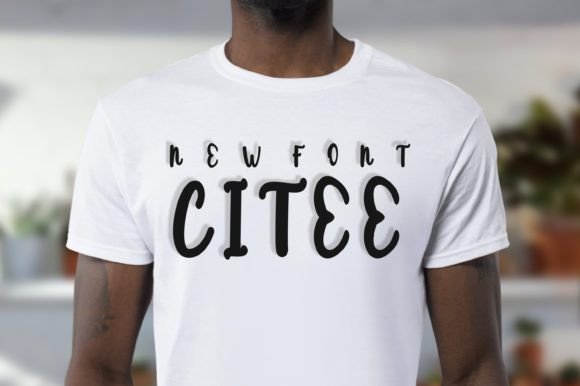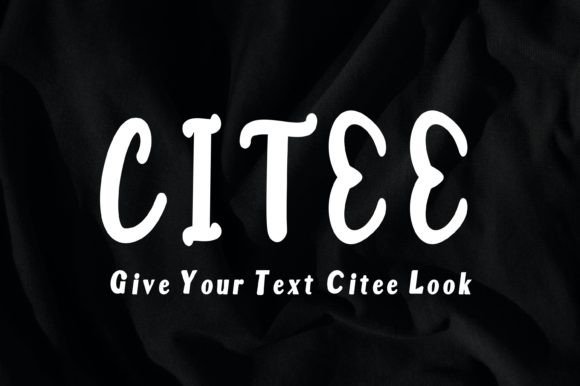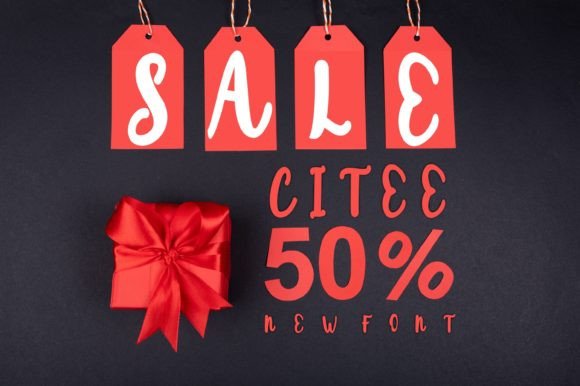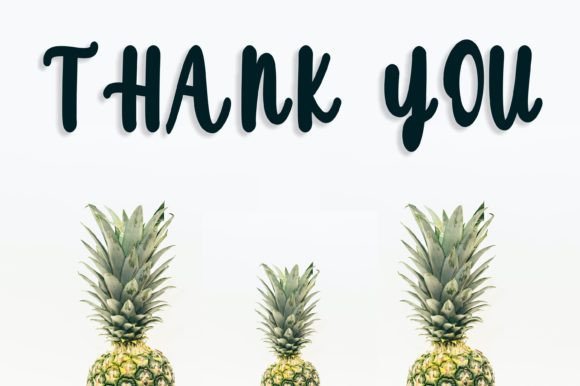
Citee Font – Free Download
Introduction to Citee Font
Citee is a beautiful display font perfect for magazines and crafts.
Key Features of Citee Font
Why Choose Citee Font?
Citee Font offers exceptional quality and versatility, making it a valuable addition to your design toolkit. Whether you’re creating for personal projects or commercial use, Citee Font delivers professional results.